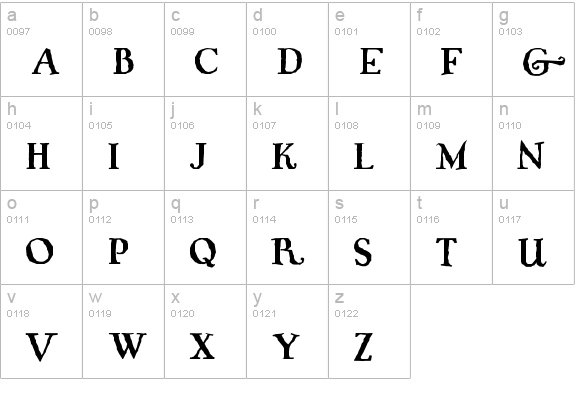
Whiffy Font Details
Introducing Whiffy font, a delightful and playful typeface that is sure to add a touch of whimsy to any creative project. With its unique and quirky design, Whiffy font is perfect for adding a fun and lighthearted vibe to invitations, posters, logos, and more. What sets Whiffy font apart is not only its charming appearance but also the fact that it is free for personal and commercial use. Yes, you read that right! Whiffy font can be freely downloaded and used in any project without any restrictions or limitations. This makes it a fantastic choice for designers, artists, and individuals alike who want to add a dash of creativity to their work without breaking the bank. Whiffy font is incredibly versatile, with a wide range of characters and glyphs available. From lowercase and uppercase letters to numbers, symbols, and punctuation marks, this font has it all. Its clean and legible design ensures that your message is conveyed clearly and effectively, while its playful nature adds a touch of personality to your text. Whether you're creating a logo for a children's brand, designing a birthday invitation, or crafting a whimsical poster, Whiffy font is the perfect choice to bring your vision to life. Its bold and eye-catching style is sure to grab attention and make a lasting impression. So, why wait? Don't miss out on the opportunity to enhance your creative projects with the delightful Whiffy font. Head over to FontsMarket.com today and download this fantastic font for free. Let your imagination run wild and watch as Whiffy font transforms your designs into something truly magical.